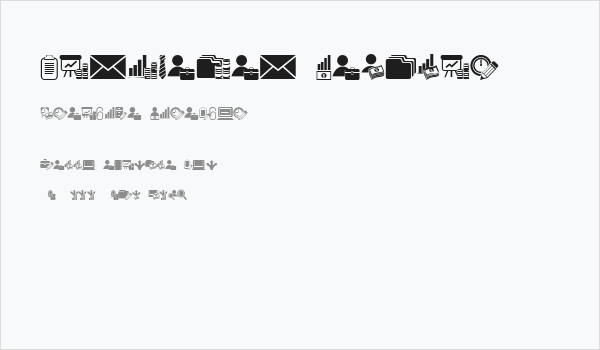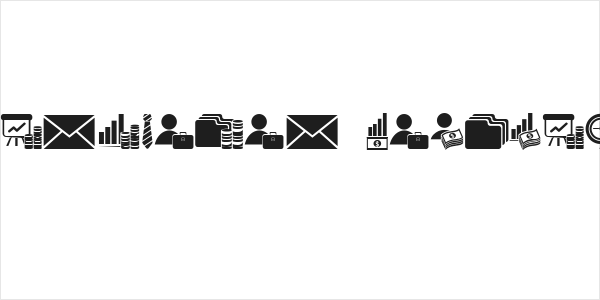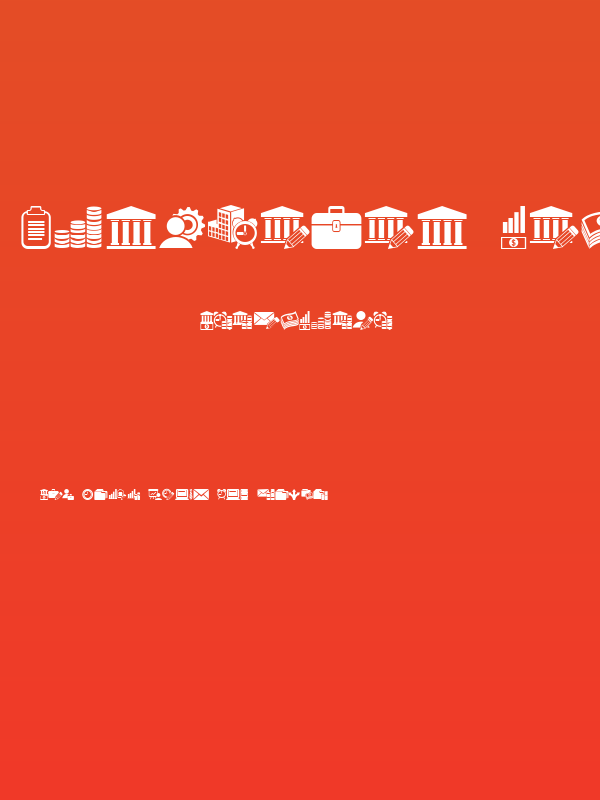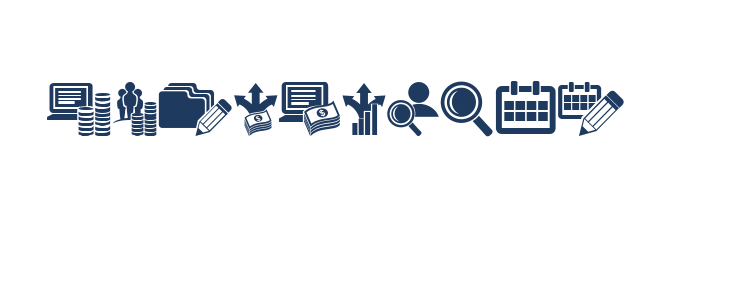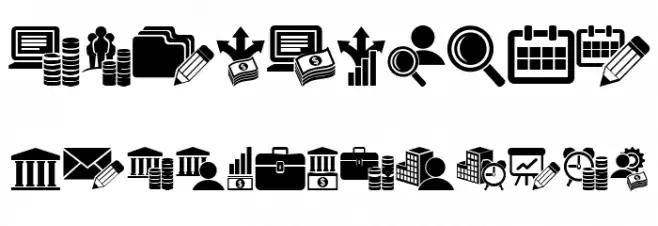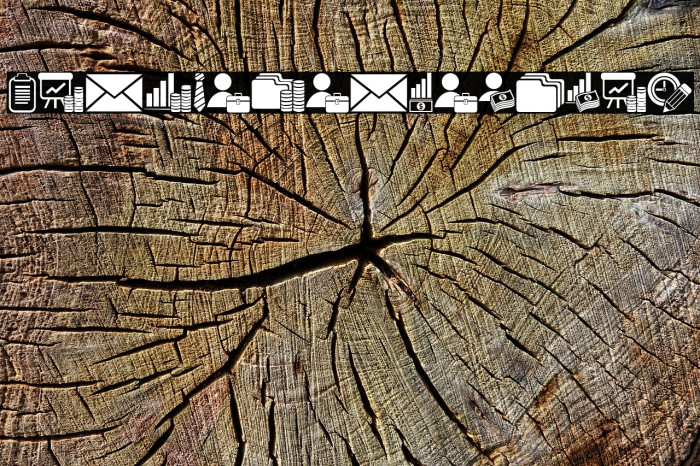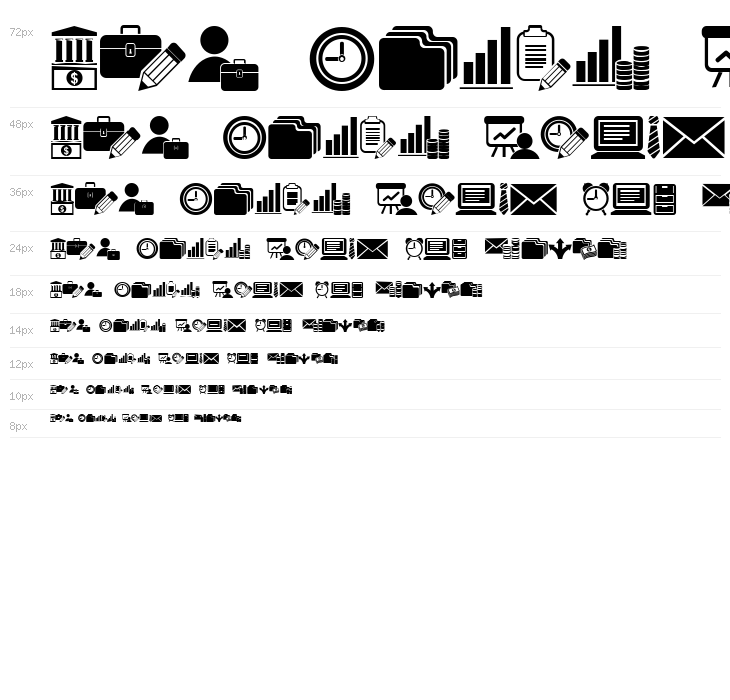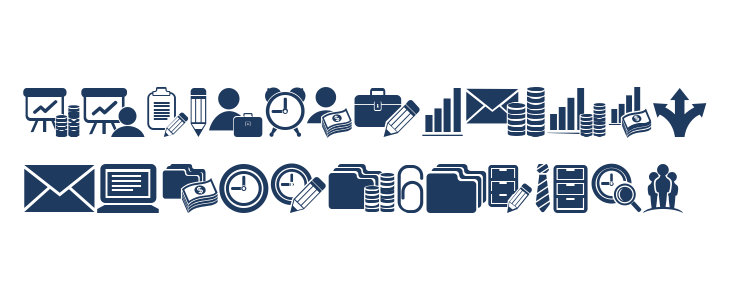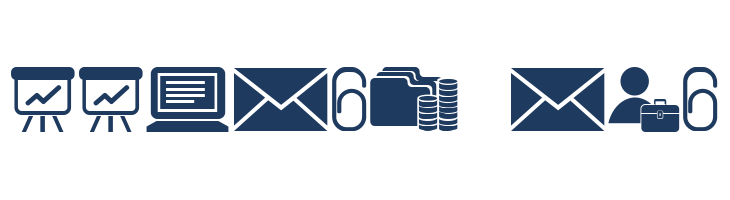
Bankwesen Regular Font
Bankwesen Regular Description
A pictogram-based dingbat font featuring bold, solid icons related to banking, finance, business, and office themes, including coins, briefcases, charts, clocks, documents, and people, all in a consistent, modern silhouette style.
| Use Case | Icons, Infographics, Visual accents |
| Proposed Projects | Infographics, presentations, financial reports, business websites, dashboards, educational materials. |